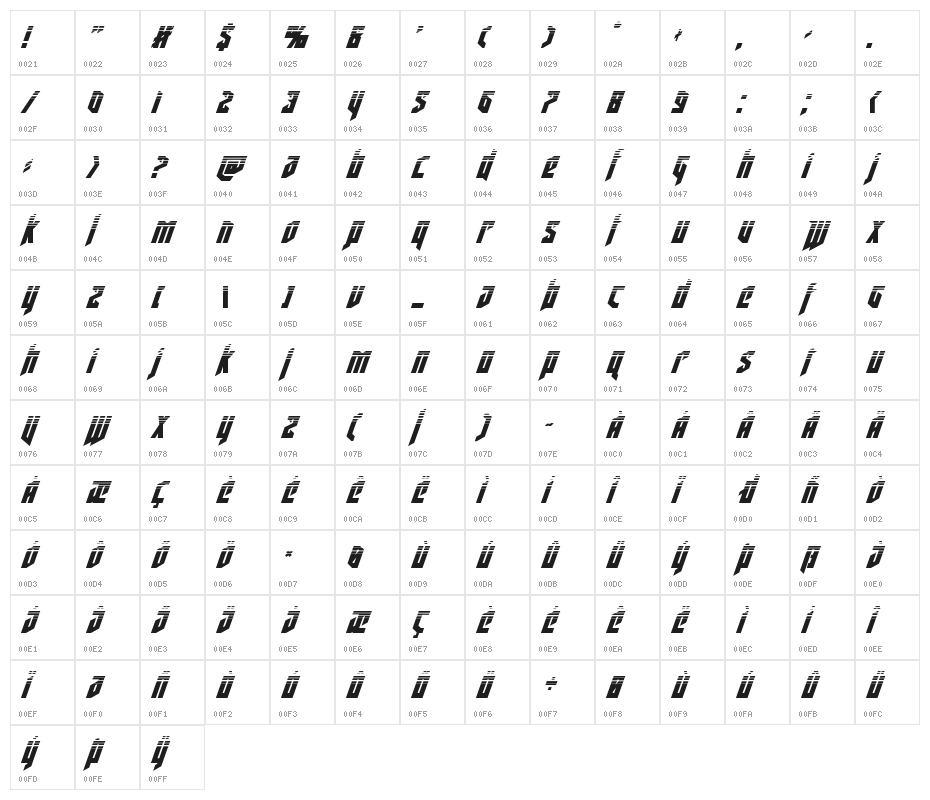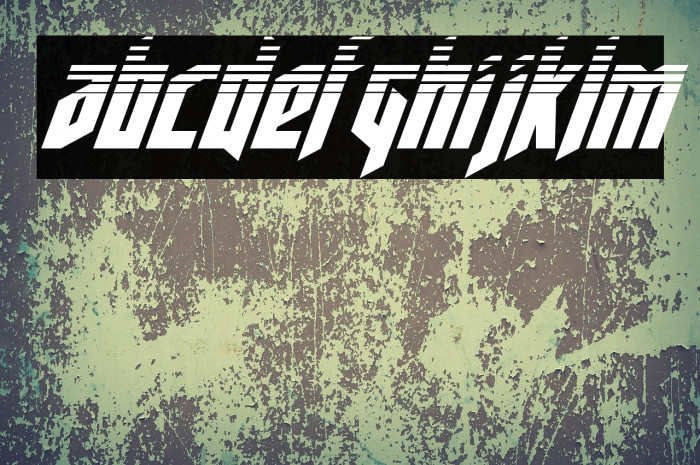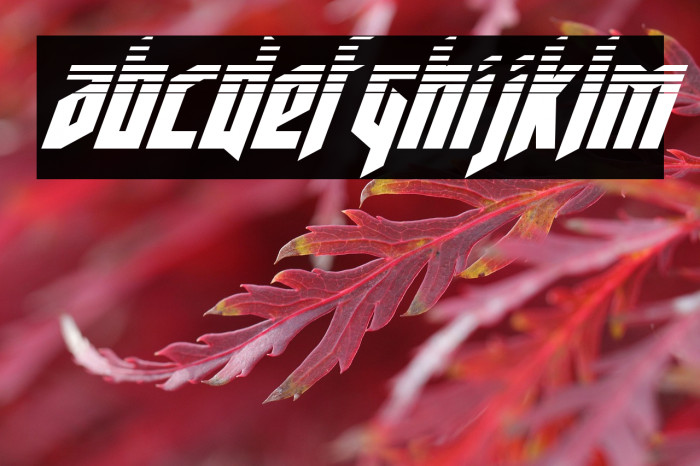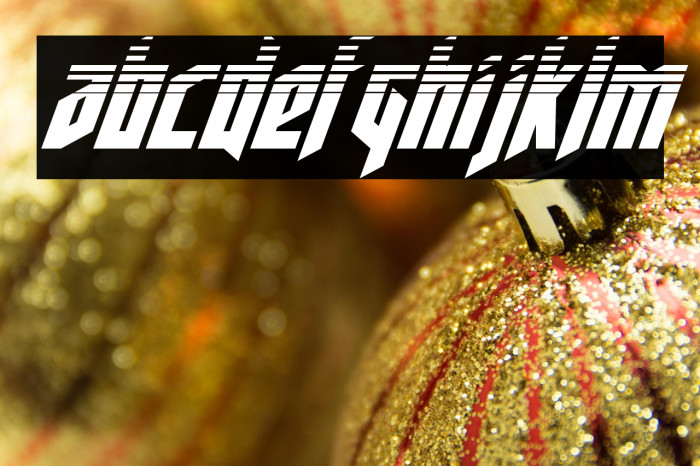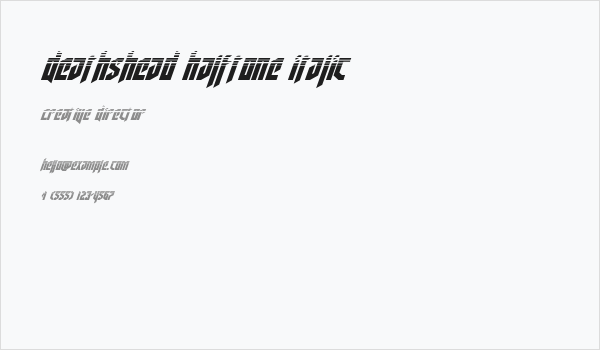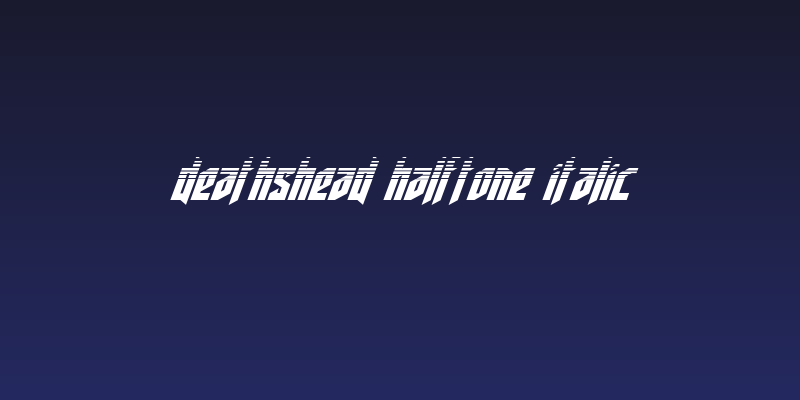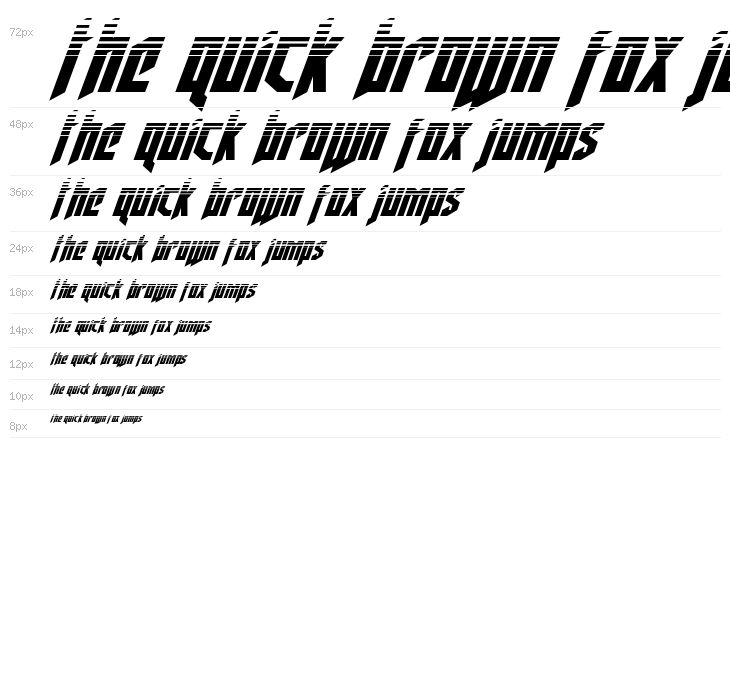
Deathshead Halftone Italic Font
Deathshead Halftone Italic Description
This font features a bold, angular design with a distinct halftone effect, giving it a futuristic and edgy appearance. The italicized letters are sharply slanted, enhancing the dynamic and aggressive style. The uppercase and lowercase characters maintain a consistent geometric structure, while the numbers and special characters follow the same bold and striking aesthetic. The font's unique halftone pattern adds texture and depth, making it stand out in any design. Its strong visual impact is ideal for projects that require a modern and unconventional look.
| Overall Style | Futuristic, Edgy |
| Proposed Projects | Ideal for sci-fi themed posters, video game titles, edgy branding, and modern art projects. |